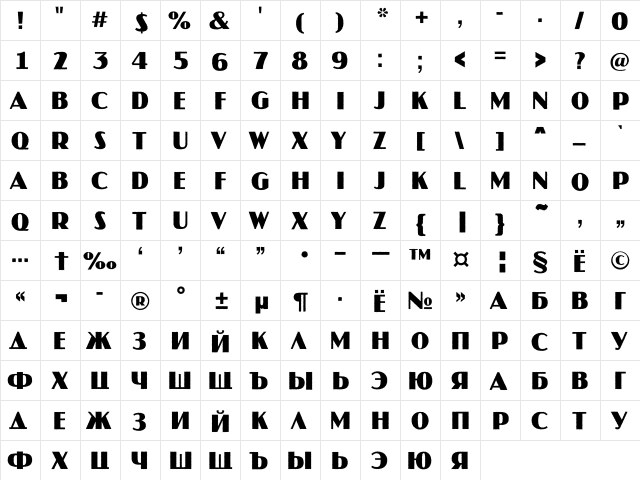
a_JasperTitulRg Bold Font Preview
a_JasperTitulRg Bold
a_JasperTitulRg Bold Font Details
Design Context for a_JasperTitulRg Typeface
a_JasperTitulRg is a composed and adaptable typeface that performs quietly and consistently across a wide range of design contexts. The heavy weight commands attention and anchors typographic hierarchies.